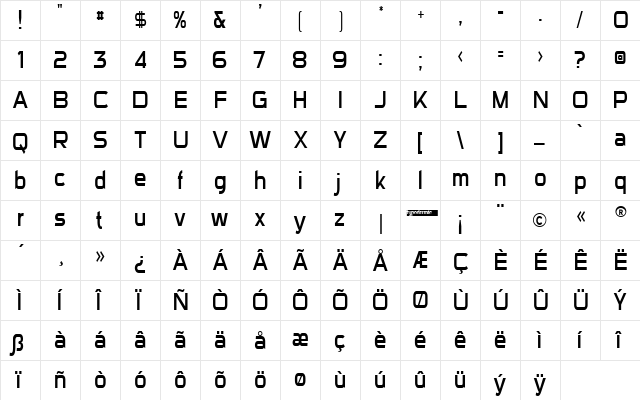
Sui Generis Condensed Light Regular Font Preview
| Foundry | Typodermic |
Design Context for Sui Generis Condensed Light Typeface
Sui Generis Condensed Light offers clean, dependable letterforms without strong stylistic allegiance, making it a practical choice for designers who need flexibility. Its slender proportions lend an understated elegance to any composition. The condensed width makes it efficient for tight spaces without sacrificing legibility.